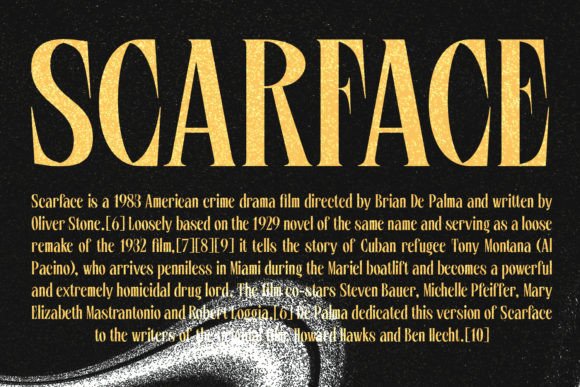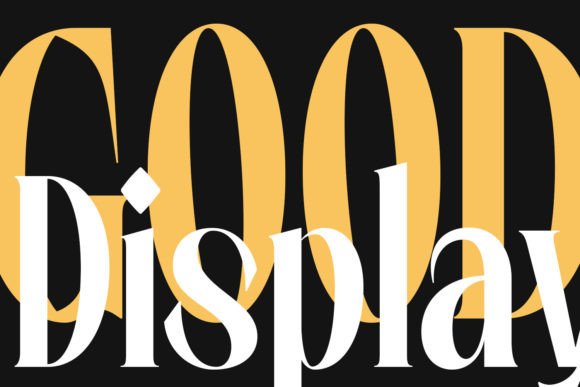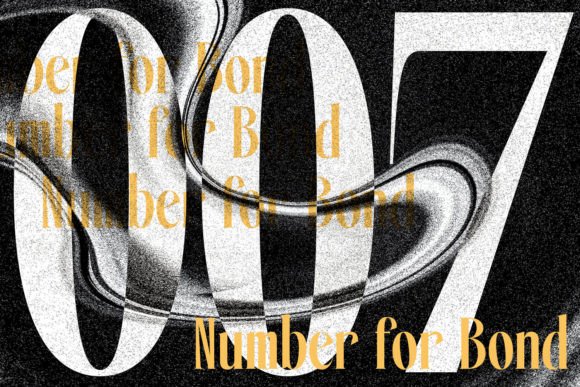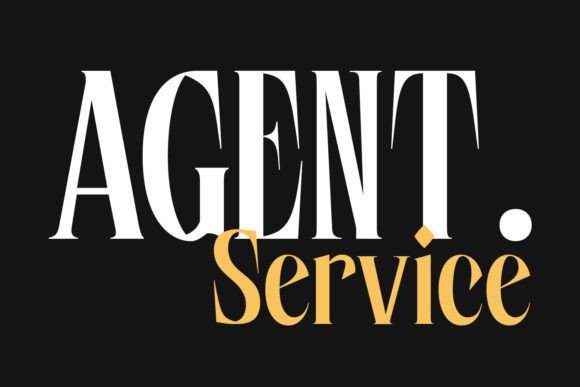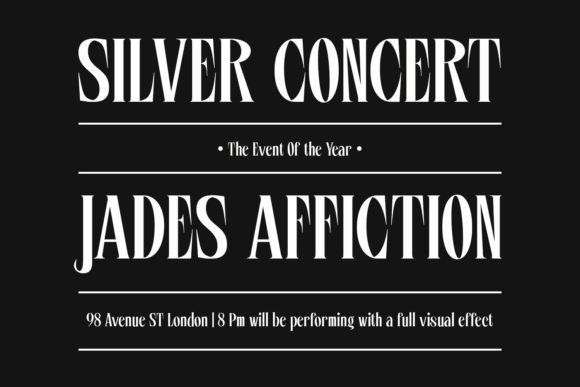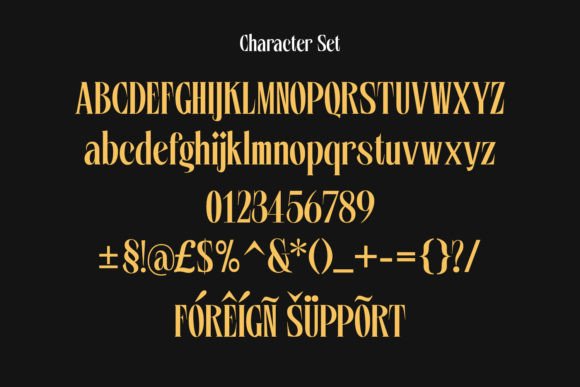
Brites Font: Elevate Your Designs with Modern Elegance
In the world of typography, a good font can make all the difference in creating stunning designs. If you’re a designer or crafter looking for a modern and sophisticated font to elevate your work, look no further than Brites Font. This high-contrast serif font is a masterpiece of typographic design, offering a unique blend of elegance and versatility.
The Distinctive Characteristics of Brites Font
Brites Font is a modern high-contrast serif font that boasts distinct and well-balanced letters. Its sleek and refined design makes it perfect for a wide range of applications, from luxury branding and advertising to packaging and editorial design. The font’s high contrast between thick and thin strokes creates a sense of drama and sophistication, adding a touch of elegance to any design.
The Versatility of Brites Font
One of the standout features of Brites Font is its incredible versatility. Whether you’re designing a logo, creating a brochure, or crafting a social media post, this font adapts seamlessly to any style or format. Its modern and sleek design makes it perfect for contemporary brands looking to make a statement, while its classic serif structure ensures it remains timeless and elegant.
Why Designers and Crafters Love Brites Font
So, what makes Brites Font a favorite among designers and crafters? Here are just a few reasons:
- Elegance and Sophistication: Brites Font exudes luxury and refinement, making it perfect for high-end brands and designs.
- Versatility: Whether you’re designing for print or digital, Brites Font adapts effortlessly to any format or style.
- Readability: Despite its high-contrast design, Brites Font remains highly readable, even at smaller sizes.
- Uniqueness: With its distinctive lettering and sleek design, Brites Font stands out from more traditional serif fonts.
Using Brites Font in Your Designs
So, how can you use Brites Font to elevate your designs? Here are a few ideas to get you started:
- Logo Design: Create a stunning logo that showcases your brand’s personality and style with Brites Font.
- Branding and Identity: Use Brites Font to create a cohesive brand identity that exudes elegance and sophistication.
- Print Design: Add a touch of luxury to your brochures, flyers, and business cards with Brites Font.
- Digital Design: Use Brites Font to create stunning social media posts, website headers, and email newsletters.
Tips for Getting the Most Out of Brites Font
To get the most out of Brites Font, here are a few tips to keep in mind:
- Experiment with Font Sizes: Brites Font looks stunning at larger sizes, but it also remains readable at smaller sizes.
- Play with Color: Brites Font looks great in a range of colors, from classic black and white to bold and bright hues.
- Mix and Match: Combine Brites Font with other fonts to create a unique and eye-catching design.
In conclusion, Brites Font is a modern high-contrast serif font that offers a unique blend of elegance and versatility. With its distinct and well-balanced letters, this font is perfect for designers and crafters looking to elevate their work. Whether you’re creating a luxury brand identity or crafting a social media post, Brites Font is sure to impress. So why wait? Fall in love with Brites Font and take your designs to the next level!